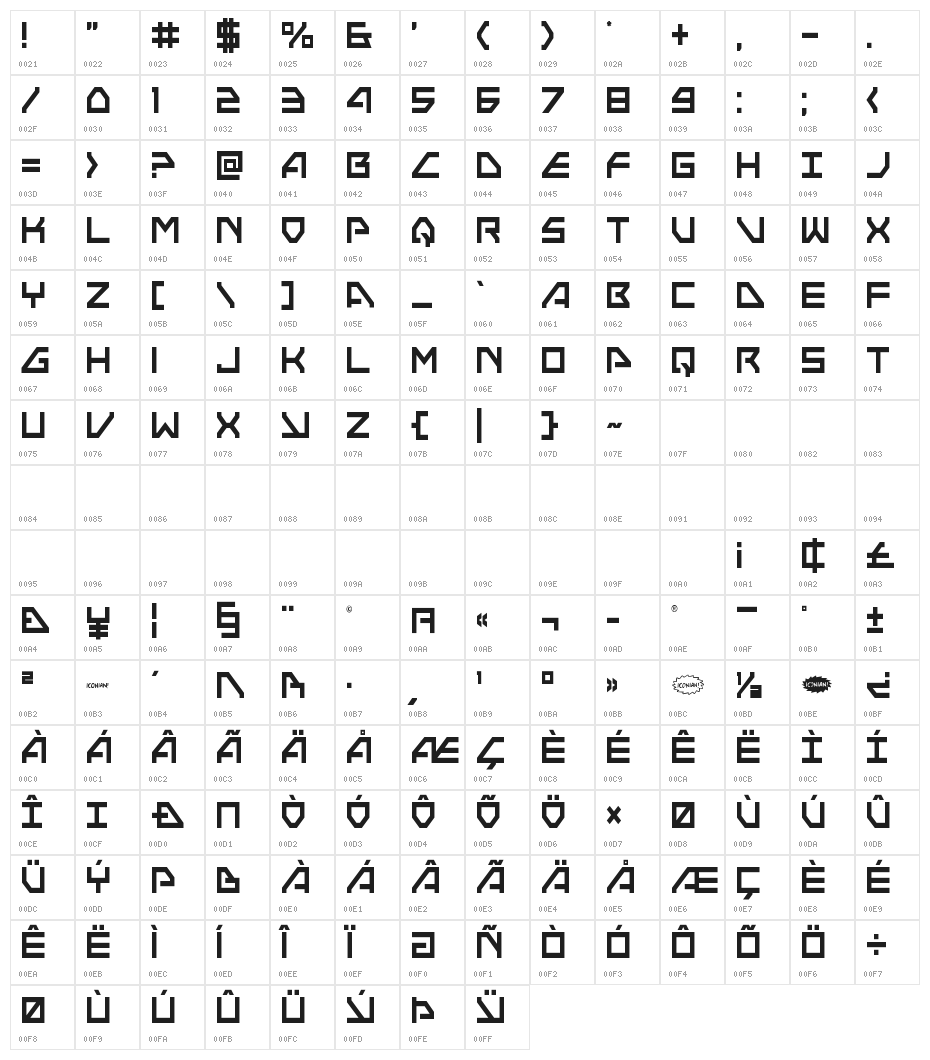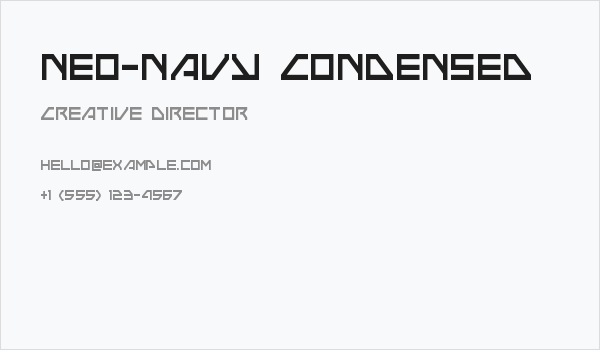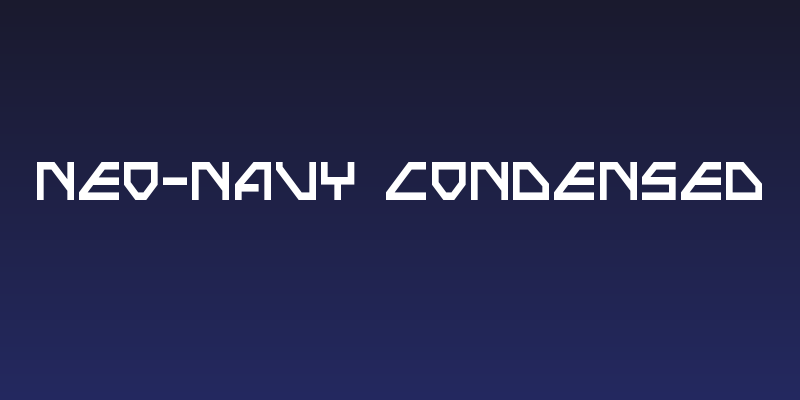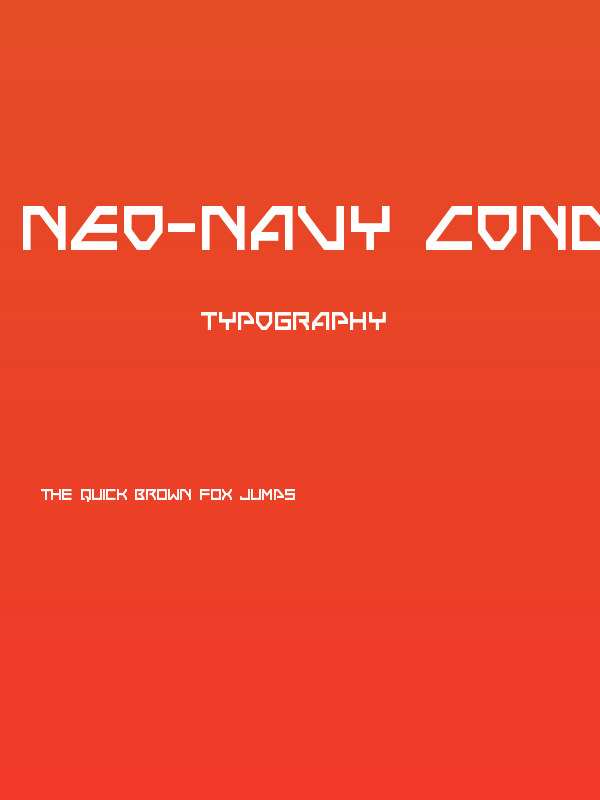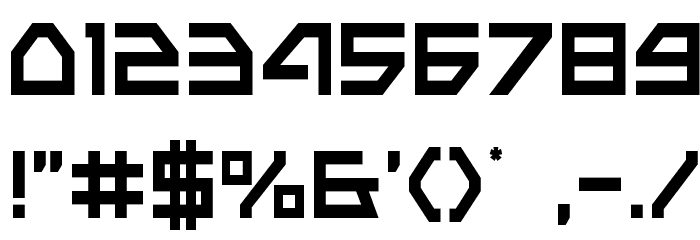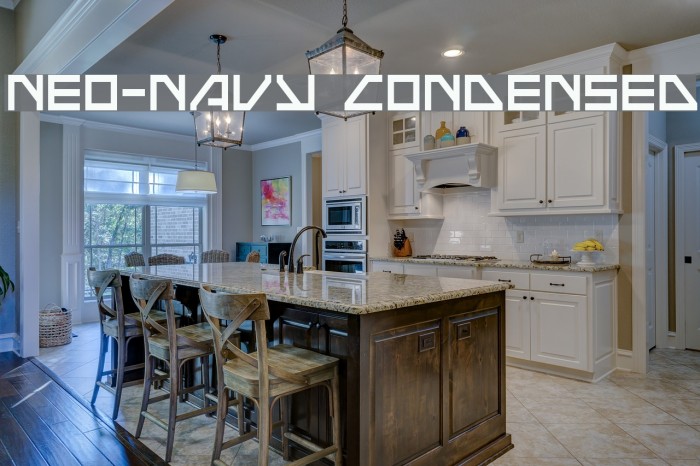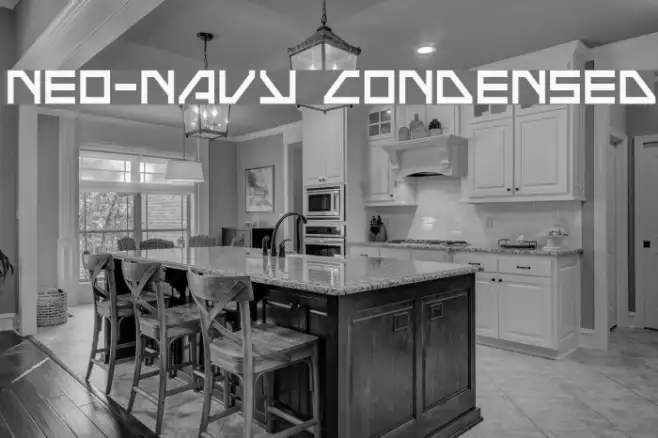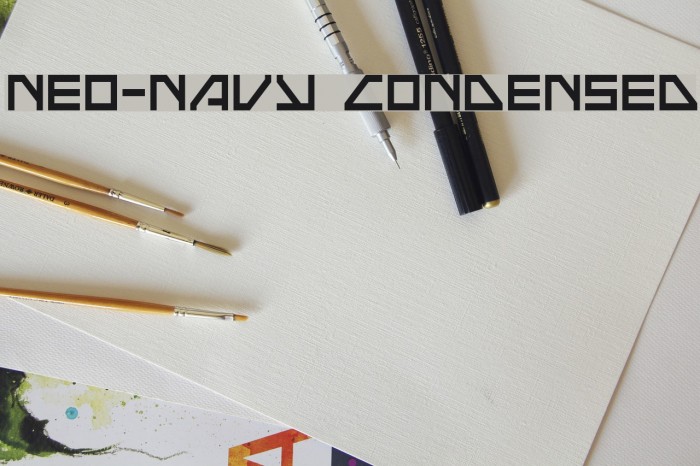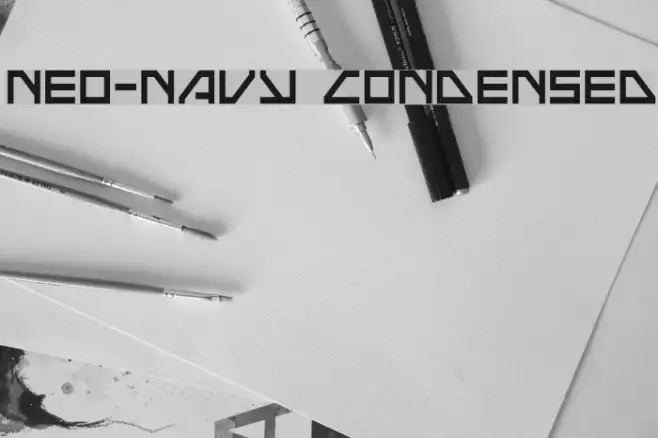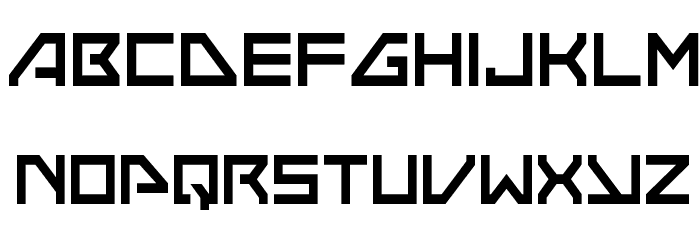
Neo-Navy Condensed Font
Neo-Navy Condensed Description
This font features a bold, geometric design with a futuristic and industrial feel. The characters are constructed with sharp angles and straight lines, giving it a modern and edgy appearance. The uppercase and lowercase letters maintain a consistent style, with a condensed width that enhances its compact and efficient look. The numerals and special characters follow the same design principles, ensuring uniformity across all glyphs. The font's unique style makes it stand out, ideal for projects that require a strong visual impact.
| Proposed Projects | Ideal for branding, posters, video game graphics, and sci-fi themed projects. |